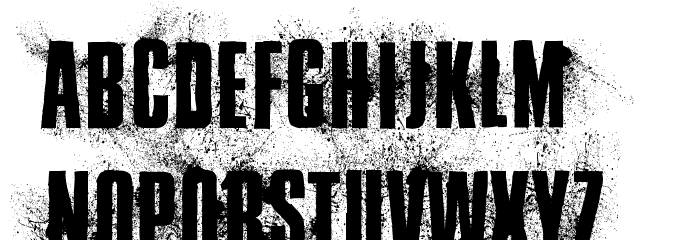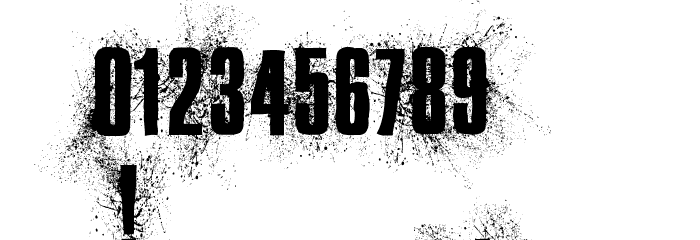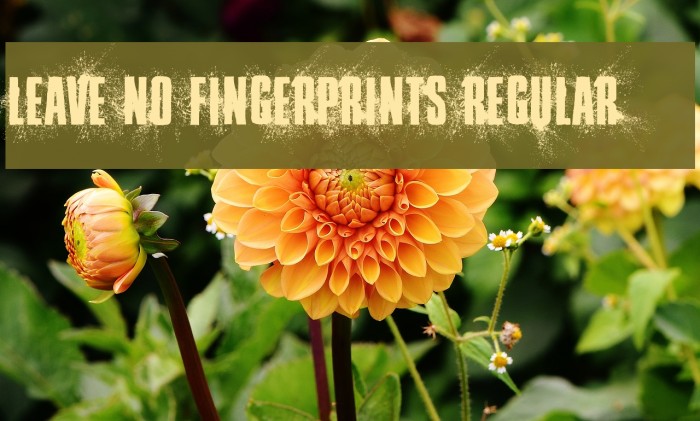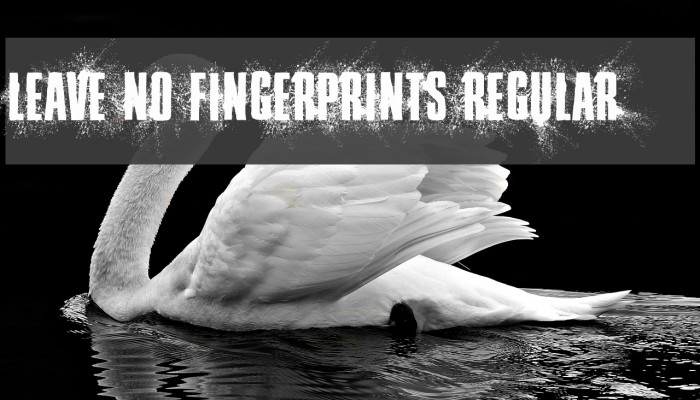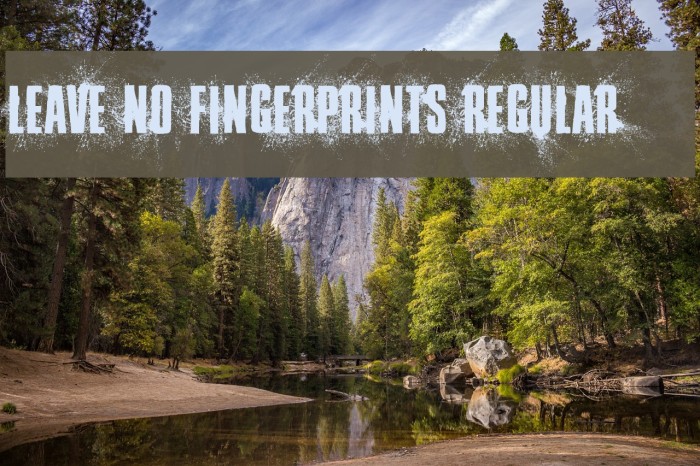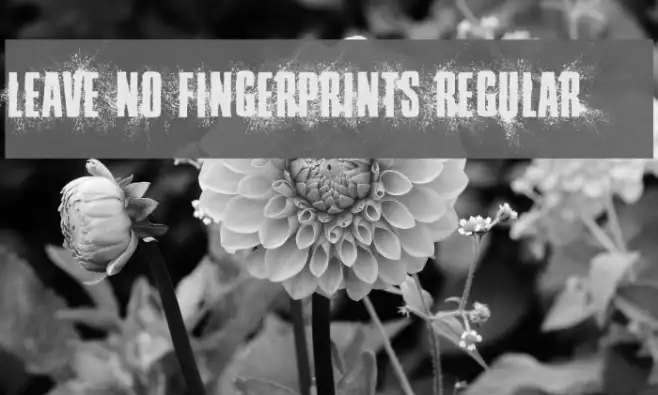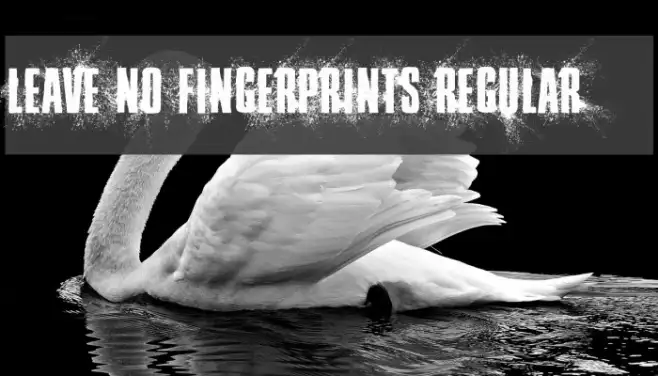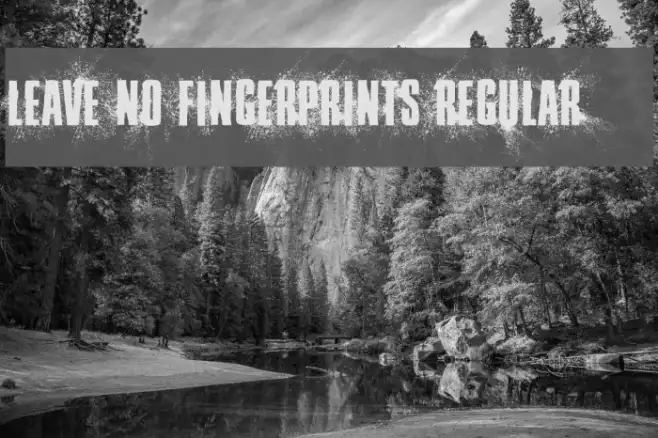
Leave No Fingerprints Regular Font
This font features a bold and distressed style, characterized by a textured, grunge appearance that mimics the look of splattered ink or paint. The uppercase and lowercase letters, as well as numbers, maintain a consistent boldness, with rough edges and irregularities that give each character a unique, weathered look. The font's design is reminiscent of urban street art or graffiti, making it stand out with its raw and edgy aesthetic. The spacing between characters is relatively tight, enhancing its compact and impactful presence. This font is ideal for projects that require a strong, rebellious, or artistic vibe.
A bold, distressed font with a grunge, splattered ink appearance.
- Proposed Projects: Ideal for album covers, posters, streetwear branding, or any project seeking an edgy, artistic look.
- Character Spacing: Tight
- Overall Style: Grunge, Urban, Artistic